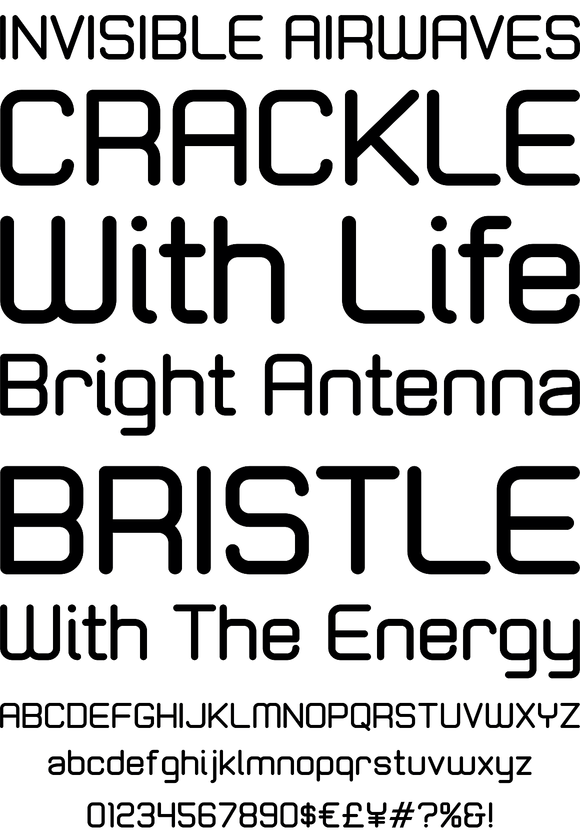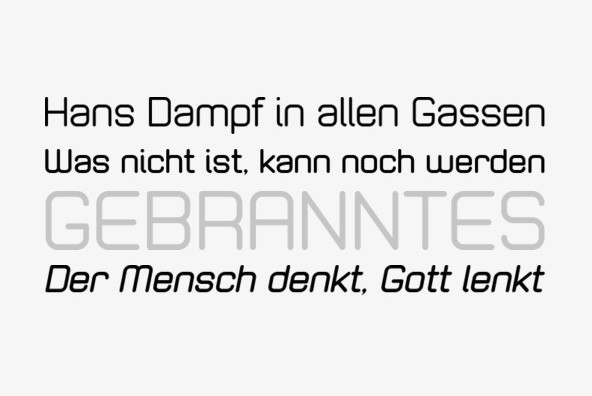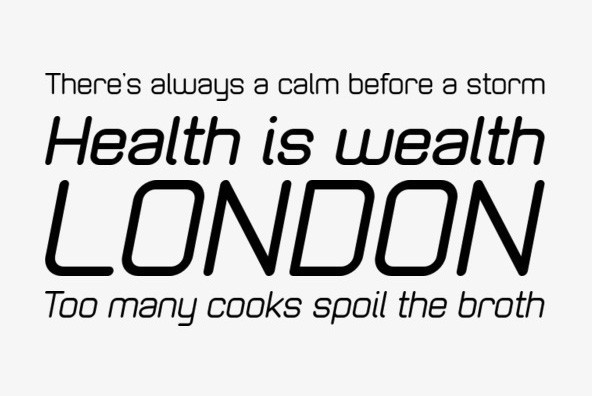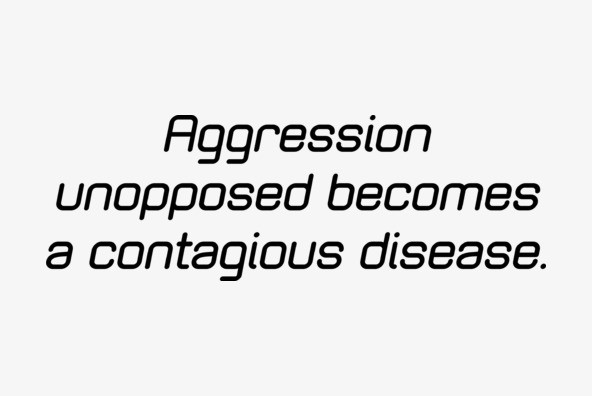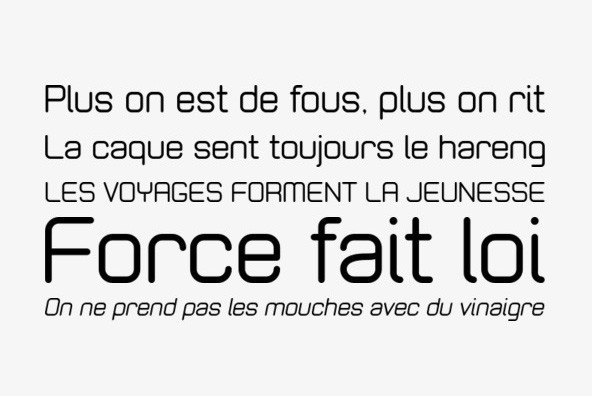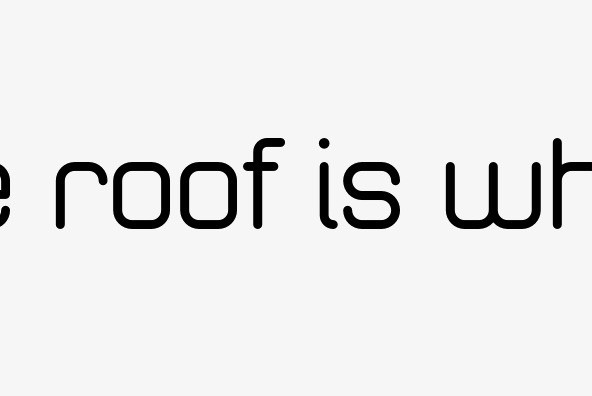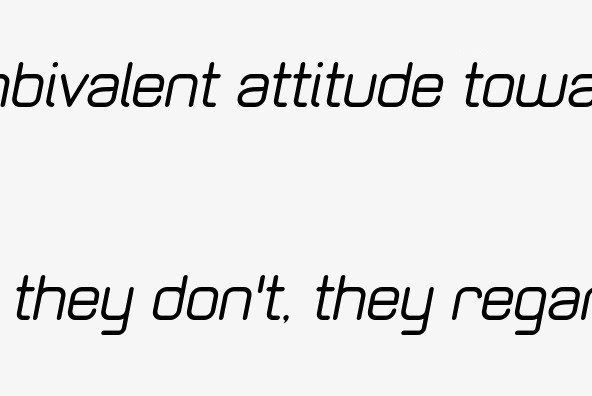
Zolano Sans is a clean futuristic sans serif font family that takes a clean simple straight-forward approach to legibility. Inspired by smooth geometric letterforms, the Zolano family creates its own honesty with a hint of personality.